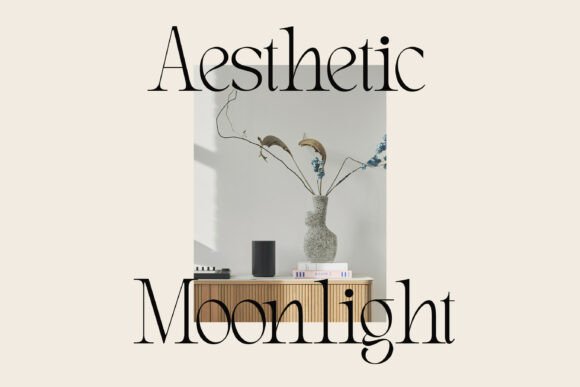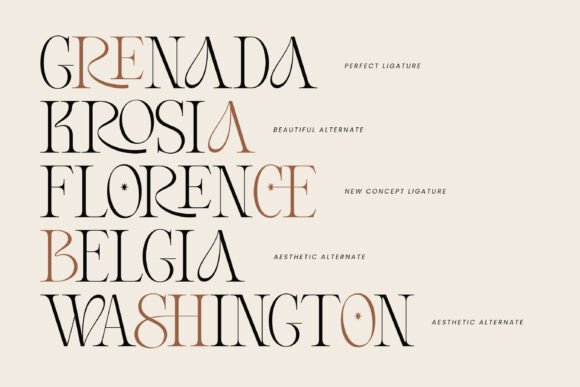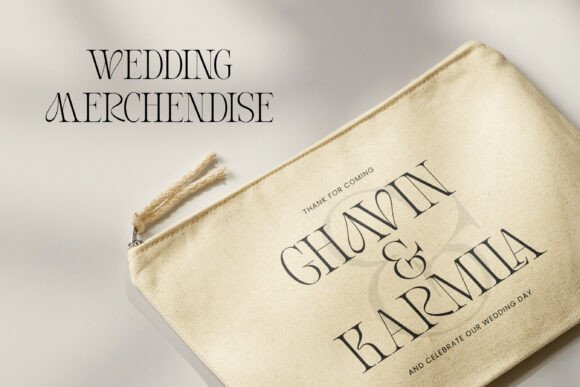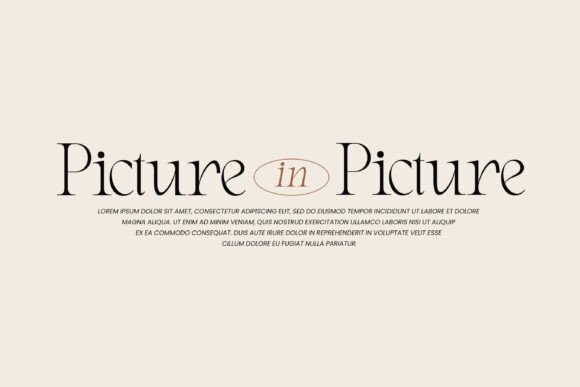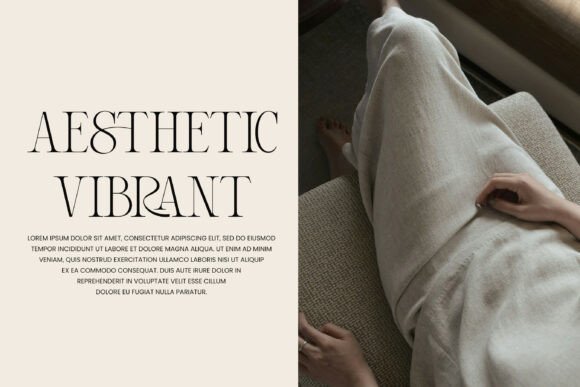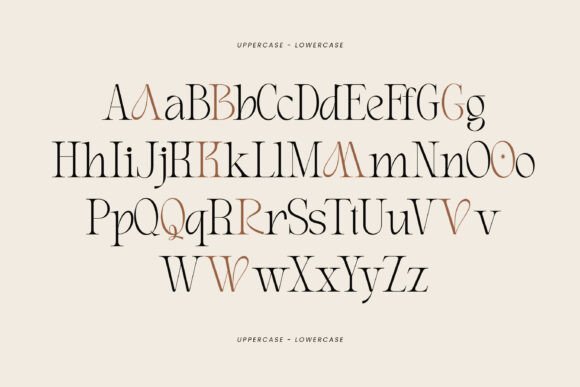
The Dreamy Elegance of Dream Morish Font: A Designer’s Delight
I still remember the design project that led me to discover the stunning Dream Morish font. I was working on a luxury branding project for a high-end fashion client, and I was struggling to find the perfect font that exuded elegance and sophistication. The client wanted a design that would make their brand stand out while still conveying a sense of refinement and timelessness. After hours of searching, I stumbled upon Dream Morish, and it was love at first sight! ✨
A Closer Look: What I Love About Dream Morish
So, what makes Dream Morish so special? Here are some of the things that I absolutely love about this beautiful font:
- ✨ Elegant serif design with high contrast strokes that give it a luxurious feel
- ✅ Smooth flow and stylish ligatures that add a touch of sophistication to any design
- 🌟 Unique letterforms that create a dreamy, artistic character that’s hard to find in other fonts
- 🔥 Perfect blend of classic and modern typography that makes it ideal for eye-catching designs
Honest Review: A Few Quirks to Consider
While Dream Morish is an amazing font, it’s not perfect. Here are a few quirks to keep in mind:
- 🤔 Limited use in body text: Due to its elegant, high-contrast design, Dream Morish may not be the best choice for lengthy body text. It’s better suited for headlines, titles, and short paragraphs.
- ⚠️ Some characters may require manual kerning: While the font is generally well-spaced, some character combinations may require manual kerning to achieve optimal results.
The Designer Inspiration Behind Dream Morish
While the actual designer behind Dream Morish is unknown, it’s clear that they were inspired by the world of luxury and elegance. The font’s unique letterforms and high contrast strokes evoke a sense of refinement and sophistication, making it perfect for high-end branding projects. Some designers may have been influenced by classic serif fonts, while others may have drawn inspiration from modern typography trends.
Here are some frequently asked questions about Dream Morish:
| What type of projects is Dream Morish best suited for? | Dream Morish is perfect for luxury branding projects, high-end publications, and designs that require a touch of elegance and sophistication. |
| Can I use Dream Morish for body text? | While Dream Morish can be used for short paragraphs, it’s not recommended for lengthy body text due to its elegant, high-contrast design. |
| Does Dream Morish support OpenType features? | Yes, Dream Morish supports OpenType features, including ligatures, stylistic alternates, and glyphs. |